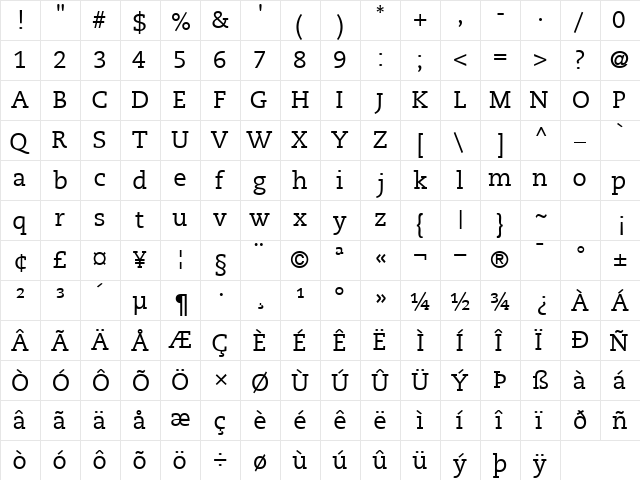
MonologueSSK Regular
Design Context for MonologueSSK Typeface
MonologueSSK uses fixed-width spacing throughout, giving it the structured, systematic character associated with coding environments and technical documentation.
Pro Tip: Use MonologueSSK with slightly increased line-height for extended reading — fixed-width spacing can feel dense in longer passages without extra breathing room.